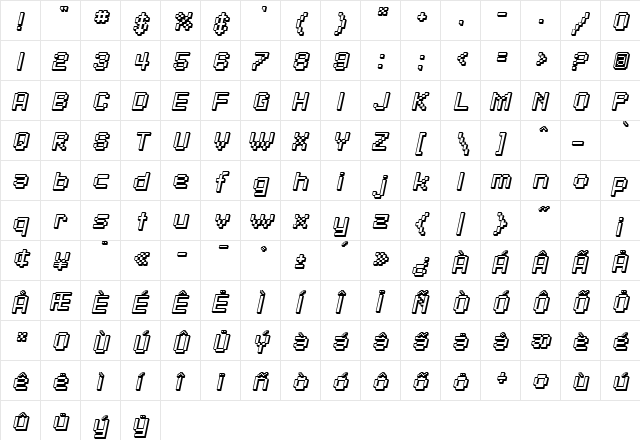
SF Pixelate Shaded Oblique
Design Context for SF Pixelate Shaded Typeface
SF Pixelate Shaded celebrates the constraints of early digital type, turning pixel geometry into a distinctive and immediately recognisable style. The dynamic lean of this cut emphasises speed and emphasis in any layout.
A natural choice for retro game titles, chiptune music branding, 8-bit UI, and digital nostalgia projects.
Pro Tip: Pair SF Pixelate Shaded with flat colour palettes and simple geometric UI elements to reinforce its digital aesthetic.